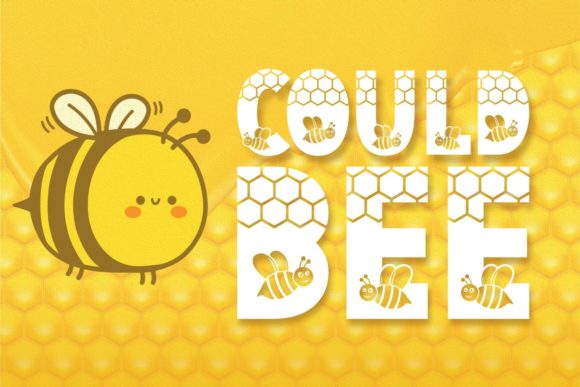
Introducing Could Bee Font, the sweet and original decorative font designed by Dika from 7NTypes. Are you in need of a font that can make your project stand out? Look no further! Could Bee Font is the perfect solution for any branding project.
With its unique style and creative design, Could Bee Font is ideal for logos, t-shirt printing, and various creative products. This font is perfect for anyone looking for a font that can make their project visually captivating and engaging.
The beauty of Could Bee Font lies in its ability to evoke a sense of warmth and friendliness. It's the perfect font to use for designs that want to convey a friendly and approachable tone. Additionally, the font's versatility allows it to work well with a variety of design elements.
Whether you're designing a poster, creating a social media graphic, or working on a product label, Could Bee Font is a font that will bring your vision to life. It's a font that will help your project stand out and make a lasting impression.